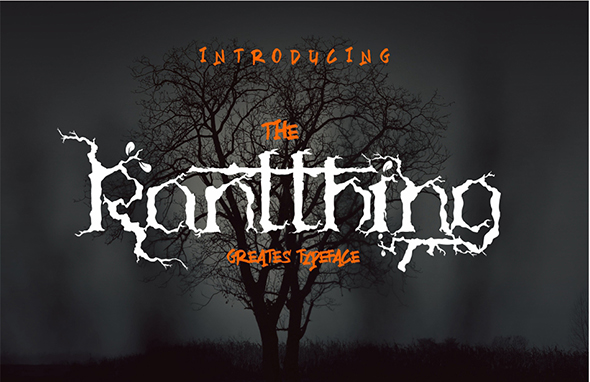
Introducing The Ranthing Typeface Font – a unique handmade creation that will give your digital projects a professional and creative edge.
**Perfect for:**
Catchy headlines and eye-popping posters
Stylish social media posts and visually appealing presentations
Branding materials that leave a lasting impression
**Why The Ranthing Typeface Font?**
The Ranthing Typeface Font is not just another font – it's a work of art. Each character is meticulously crafted to bring you a truly unique and authentic look. With its bold and playful style, The Ranthing Typeface Font is sure to make your designs stand out from the crowd.
**Benefits:**
Adds a touch of sophistication to your designs
Creates a strong and memorable brand identity
Makes your content more readable and engaging
Perfect for logos, posters, social media graphics